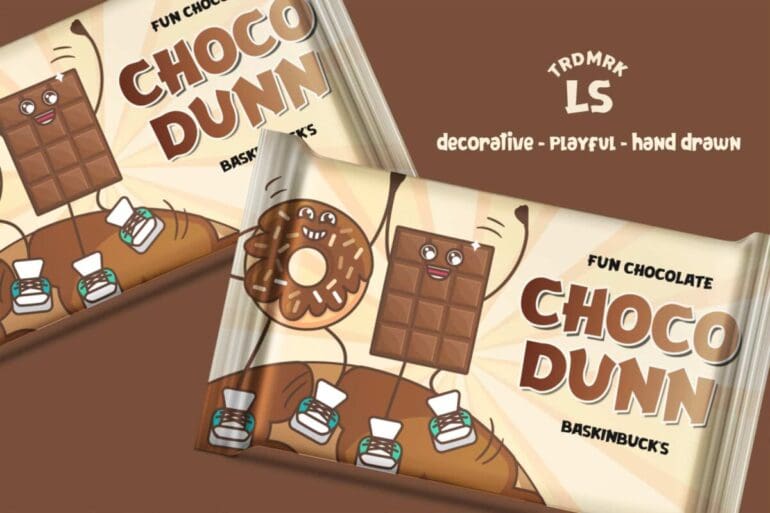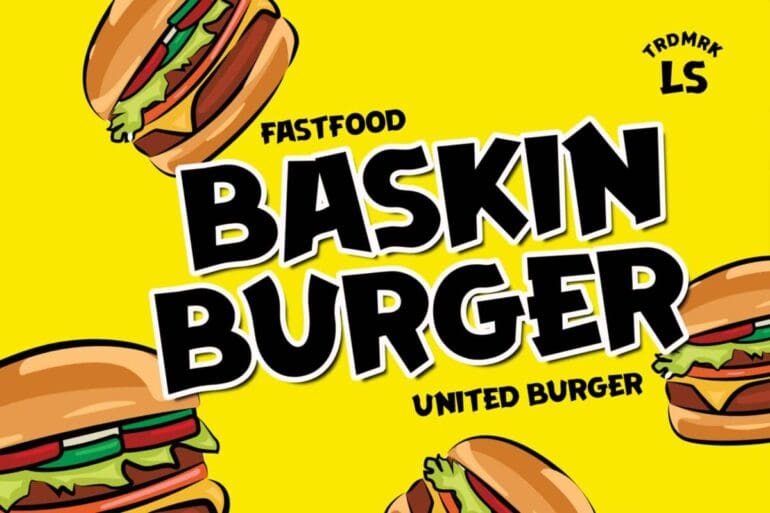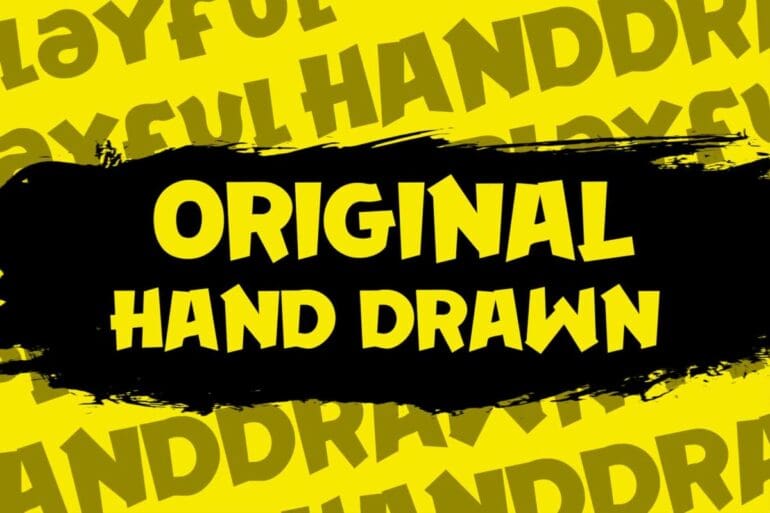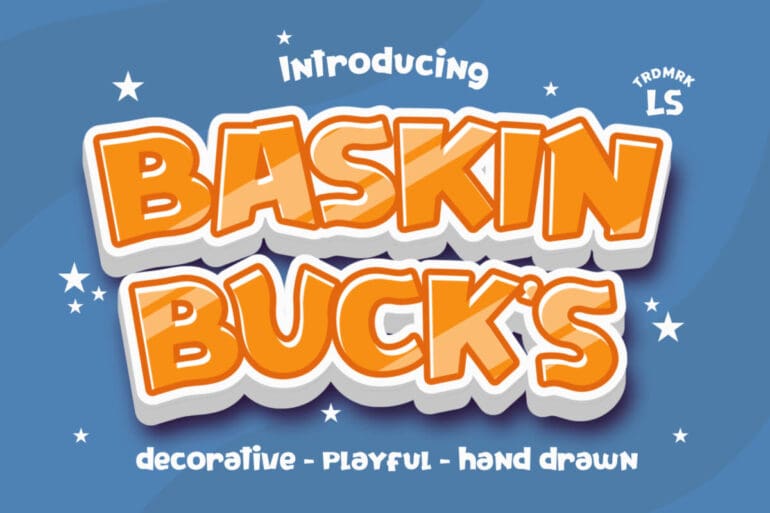
Baskinbucks Font
Baskinbucks Font. This pair was inspired by the kid’s poster design that I saw on some coffee shop, It was crafted by hand especially to add a natural handmade feeling in its brand identity then I make it clean with pentool.